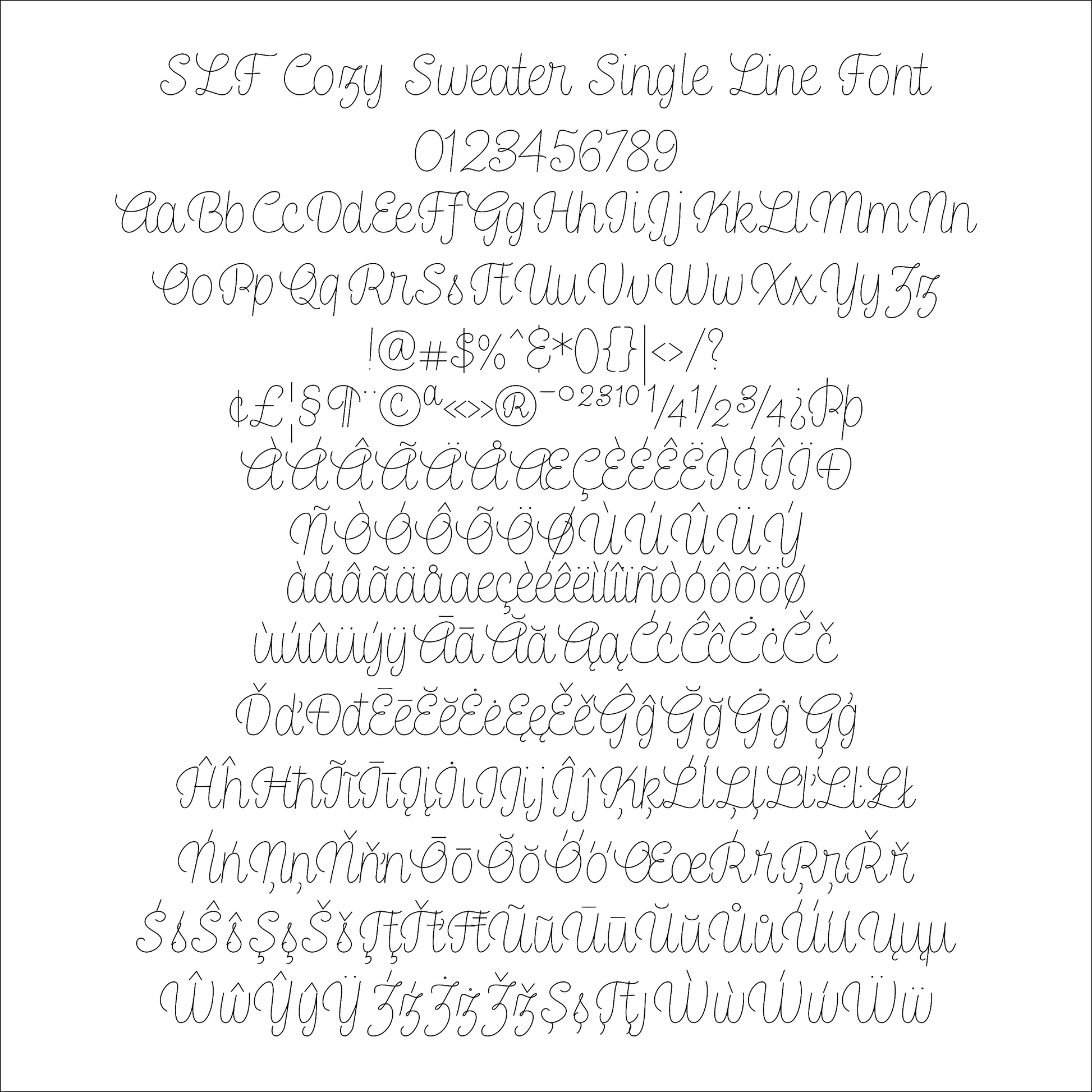
SLF Cozy Sweater – Single Line Script Font for Glowforge, Cricut & CNC
SLF Cozy Sweater is a warm, connected single line script font with rounded, casual lettering. Its friendly handwritten style is perfect for winter-themed projects, greeting cards, seasonal signs, and everyday creative designs. Use it for engraving, scoring, sketch pen tools, CNC projects, and personalized crafts.
This monoline font includes a full character set with uppercase and lowercase letters, numbers, punctuation, symbols, and accented characters for multilingual support.